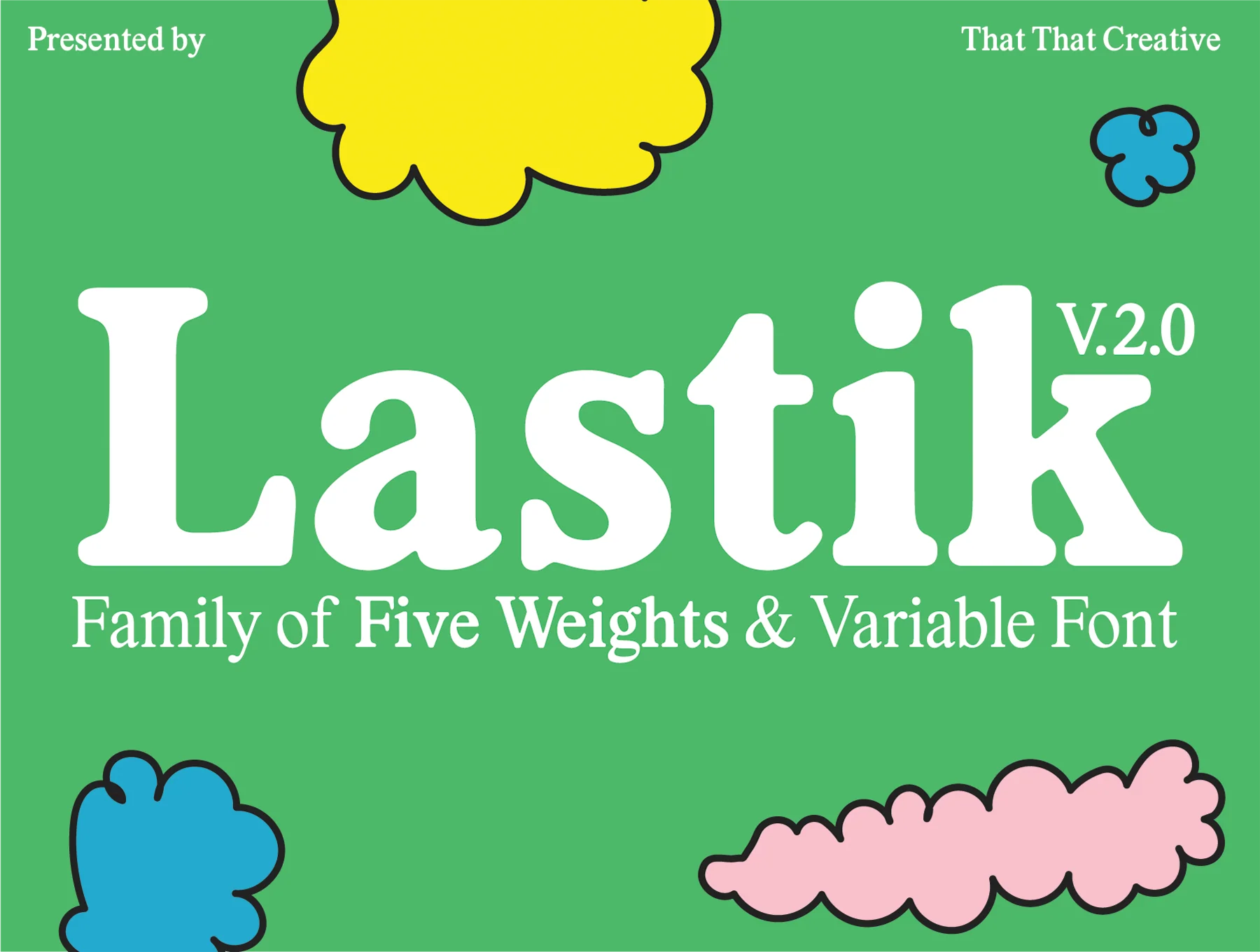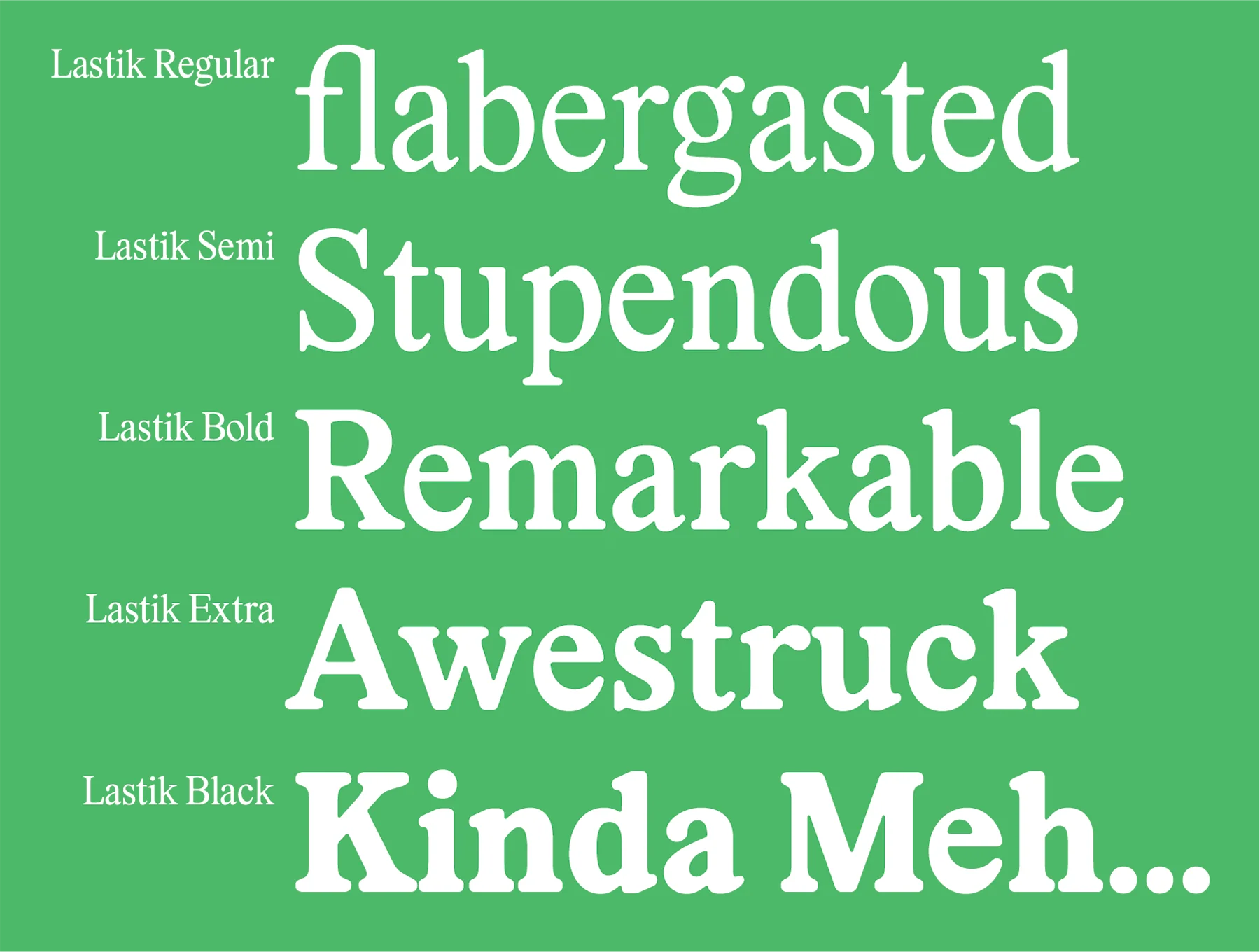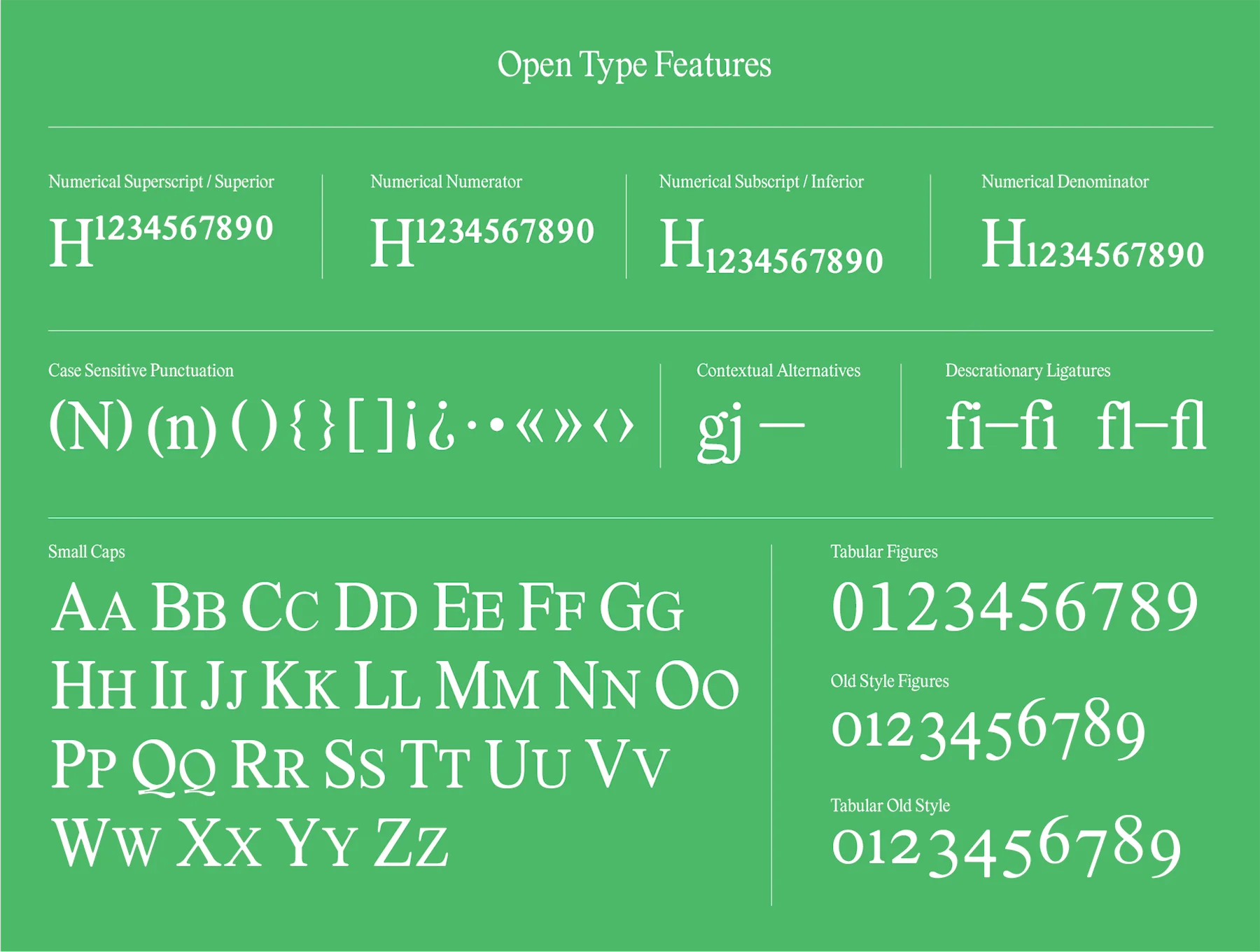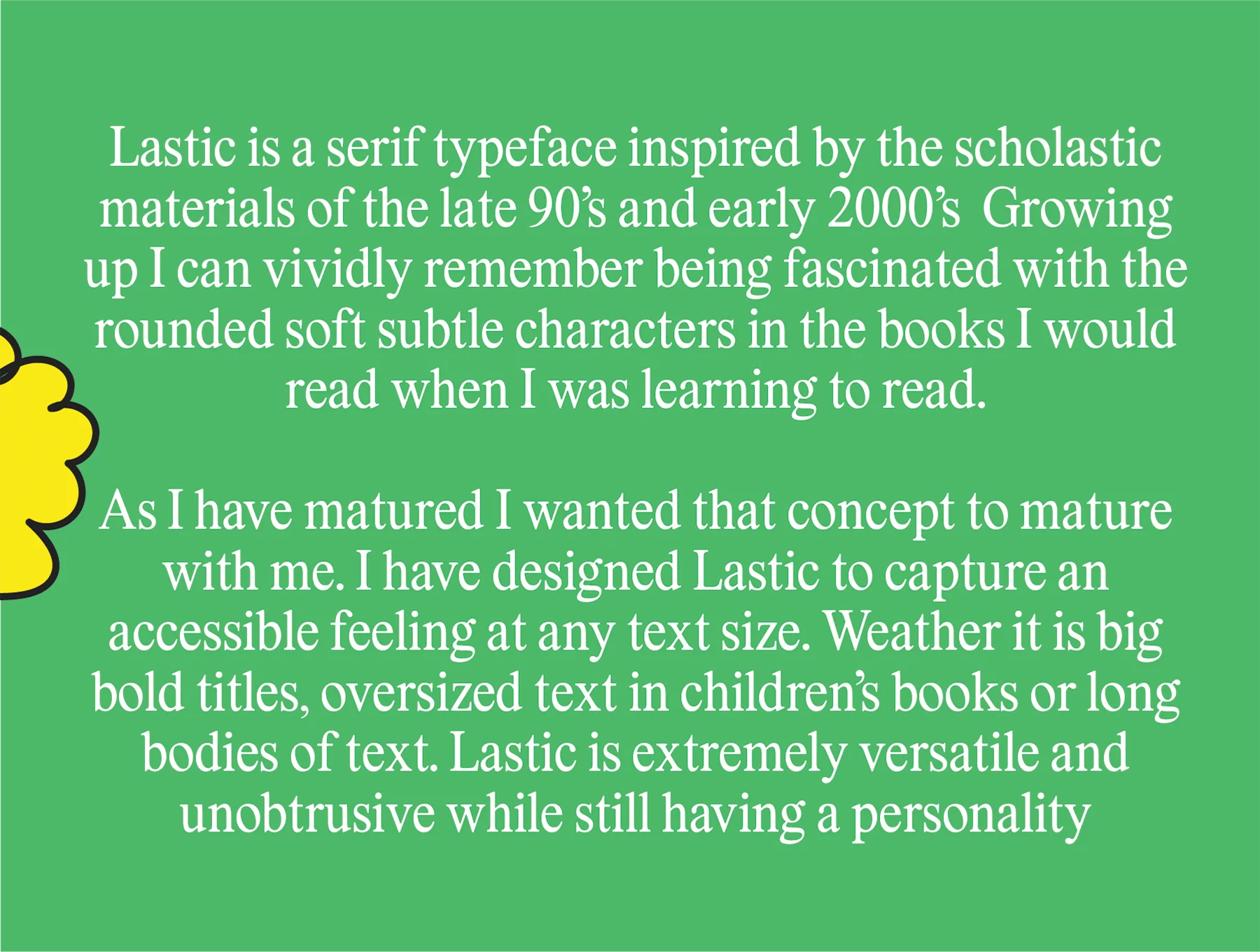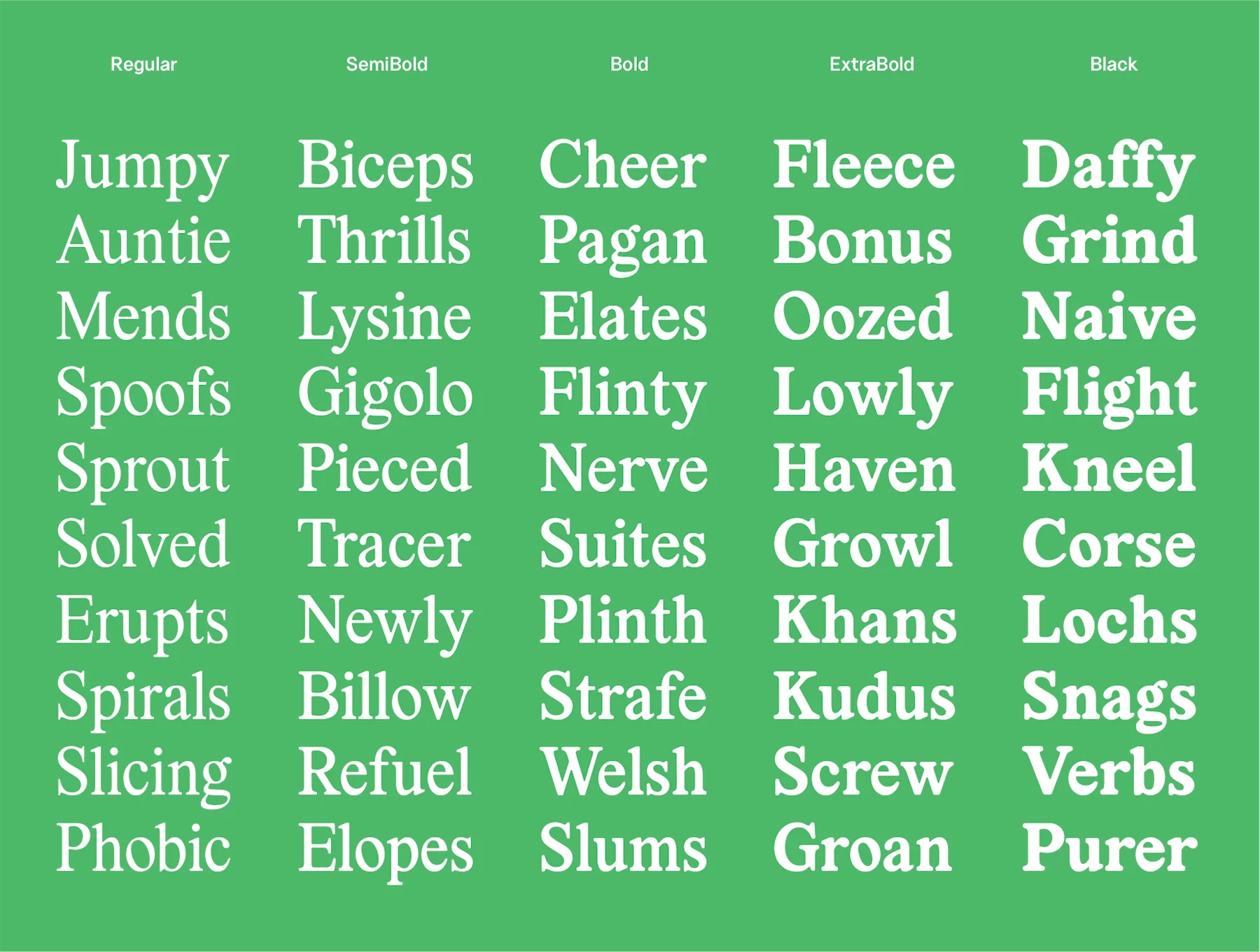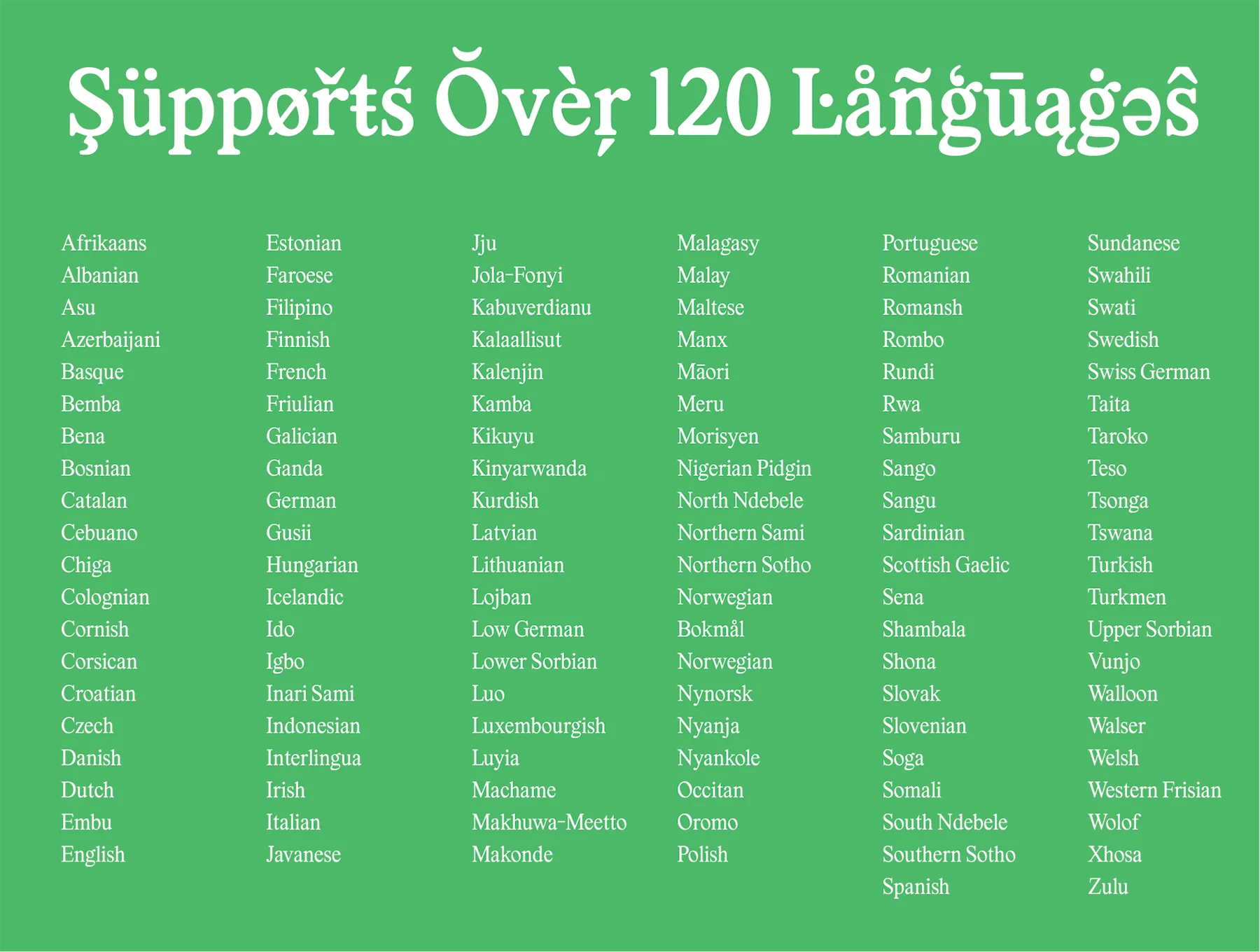
Lastik 5 Font Family
Rounded serif font family with five styles, from regular through bold
Adaptable
Multi-language
Seriffed
Curved
Lastik is a versatile serif font family built for everything from display use to body text. Inspired by friendly school materials from the late ’90s and early 2000s, it offers 5 weights, variable control, 691 glyphs, small caps, fractions, alternates, case-aware punctuation, contextual options, 120+ language support, OTF, TTF, WOFF/WOFF2, and free updates.